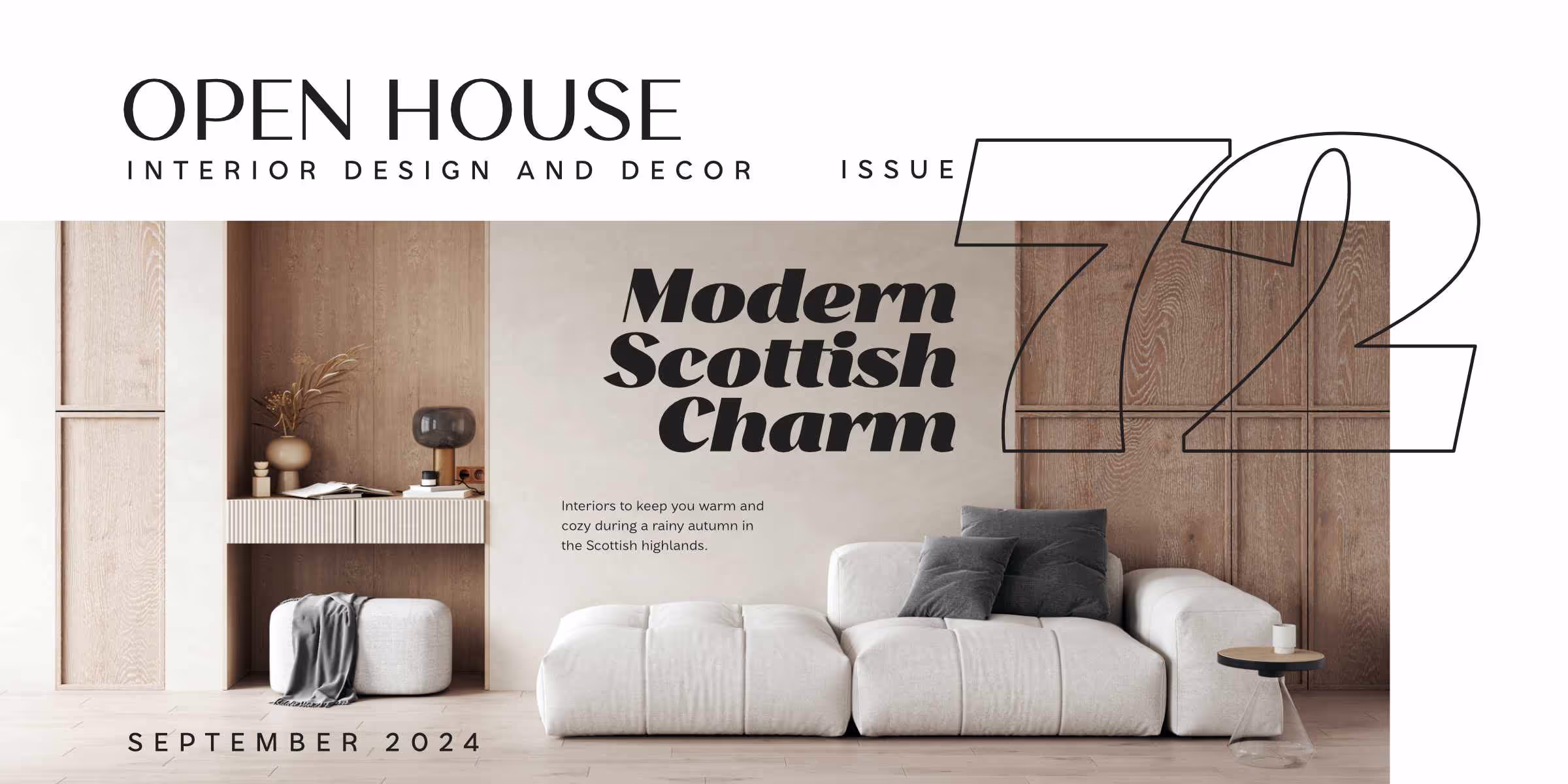
Stornoway is a high contrast sans that reimagines the charm of Scotch Roman typefaces with flared terminals, a raised x-height, and true italics. A variable font offers control over weight, contrast, and italic ranges.
Stornoway has a variable font with two axes—weight and contrast. The contrast axis can be used to make the letterforms have lower contrast and therefore be more suitable for text paragraphs like this one you are reading right now! Yes, I know this could’ve been done with an optical size axis but this axis really only controls the contrast amount and I have plans to expand the contrast axis into a reverse contrast version soon. Read more about variable fonts here.
Elegant fonts usually have extremely high contrast and crisp delicate shapes, but Stornoway’s version of elegance is a little more sturdy than that—it won’t fall apart from being too delicate. Inspired by the charm of Scotch Roman faces and Dwiggins’ Caledonia, Stornoway brings the style a bit further into the modern era with a higher x-height, flared terminals, and no serifs. The name “Stornoway” comes from an Island town in the Outer Hebrides in Northern Scotland, a town where my ancestors come from.
The high contrast styles are great for display work and can effortlessly express Art Deco, the ideals of modern architecture and interior design, or graceful menus and signage. The low contrast styles are based closely on the same structure but with enough mass to perform very nicely in body text situations. The heavier weights in the low contrast style offer a unique chunky character that would be right at home on food and drink packaging. True italics provide sparkling, expressive styles that provide more ways to include the concept of sturdy elegance into your projects.